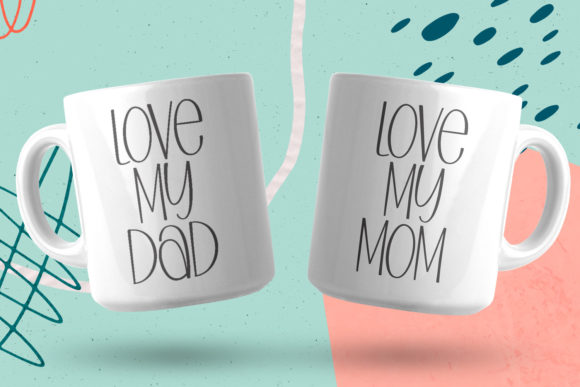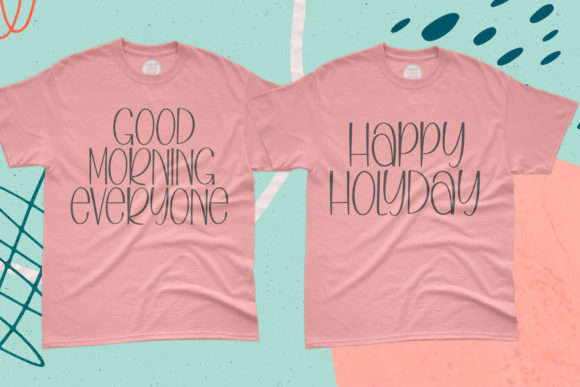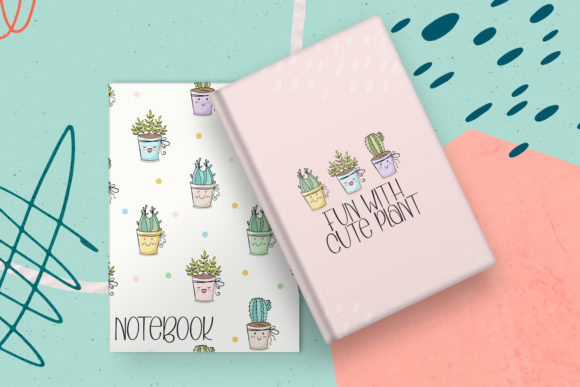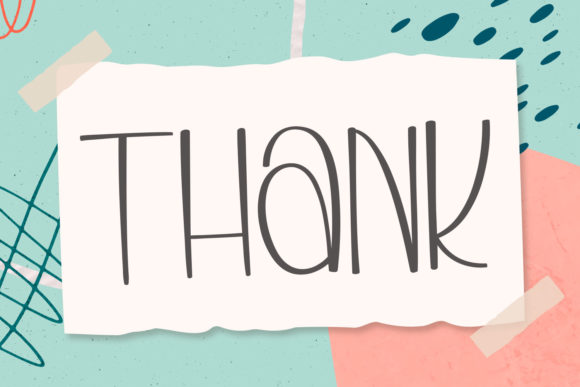
Introduction to Hello Everyone Font
Have you ever been in a creative rut, staring at a blank canvas, and desperately seeking the perfect font to bring your project to life? I’m sure many designers can relate to this moment. It’s in these instances that we stumble upon a hidden gem, a font that effortlessly elevates our design and leaves us wondering how we ever managed without it. For me, that font is the Hello Everyone Font – a delightful display font that exudes warmth and playfulness.
What sets Hello Everyone Font apart from the rest is its unique blend of smooth curves and whimsical charm. Whether you’re working on a fashion branding project or an editorial design, this font is sure to add a touch of personality to your work. Its high-quality design and transparent background make it a valuable resource for designers, and the best part? It’s available for free download.
- Unique, modern design with a friendly tone, perfect for greeting cards, invitations, and other social events
Honest Review: Hello Everyone Font
I recently came across the Hello Everyone Font while searching for a unique design resource for a creative project. The font caught my eye due to its high quality and versatility.
Here are some key features that I think work well with the Hello Everyone Font:
- ✨ The font comes in a range of styles, making it suitable for various design needs.
- ✨ The font is highly customizable, allowing for a high degree of flexibility in design projects.
However, I did encounter a few limitations while working with the font:
- ⚠️ The font doesn’t come with a transparent background, which can be a bit restrictive in certain design situations.
- ⚠️ Some users may find the font’s complexity overwhelming, particularly for simple design tasks.
Overall, I’m impressed with the Hello Everyone Font. While it may not be perfect, its high quality and creative possibilities make it a valuable design resource for many projects.
The Hello Everyone Font is a high-quality, free download design resource perfect for any creative project. It features a transparent background, making it easy to incorporate into your design.
To get the most out of the Hello Everyone Font, use it in conjunction with other design elements to create a cohesive look. Experiment with different font sizes, colors, and arrangements to find the perfect combination.
The Hello Everyone Font is perfect for a variety of design projects, including:
- Invitations and event promotions